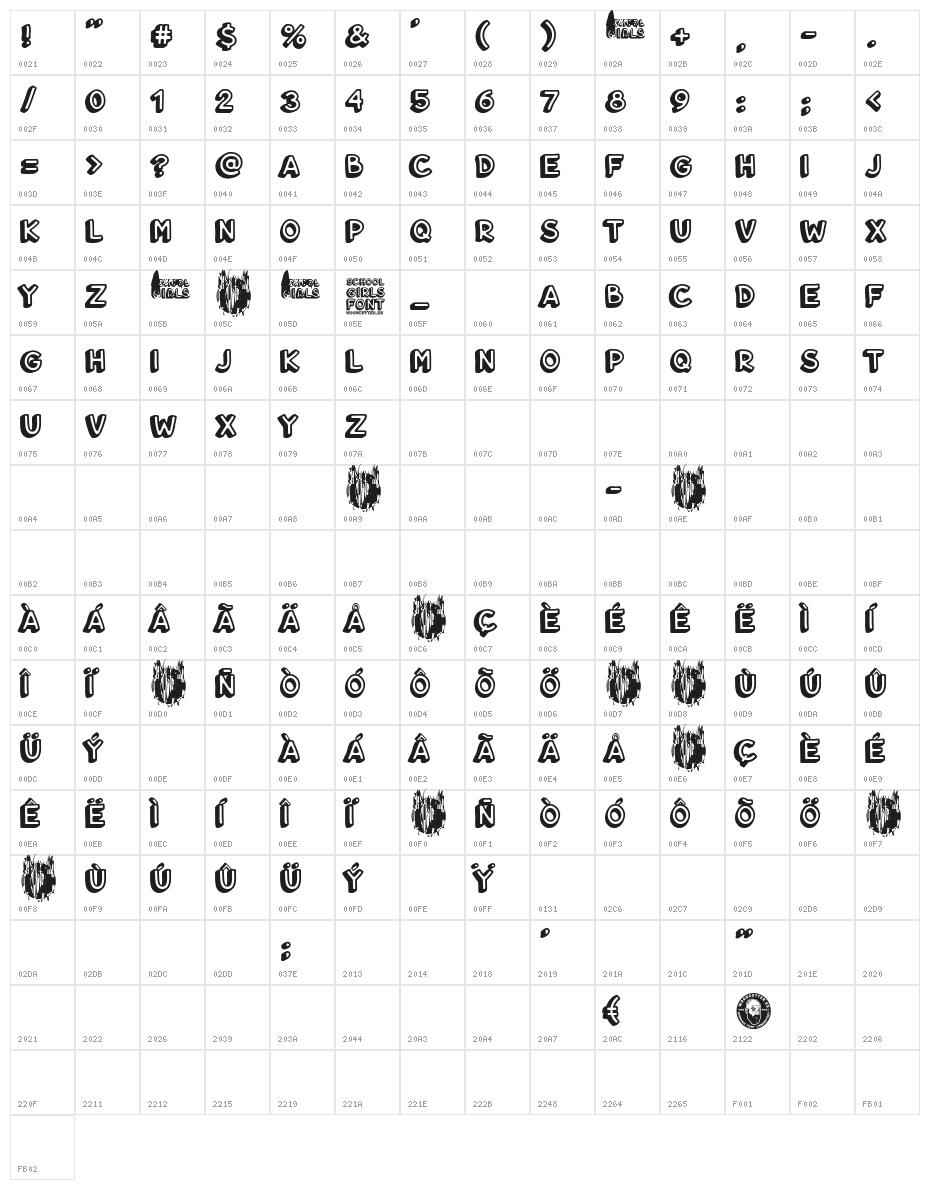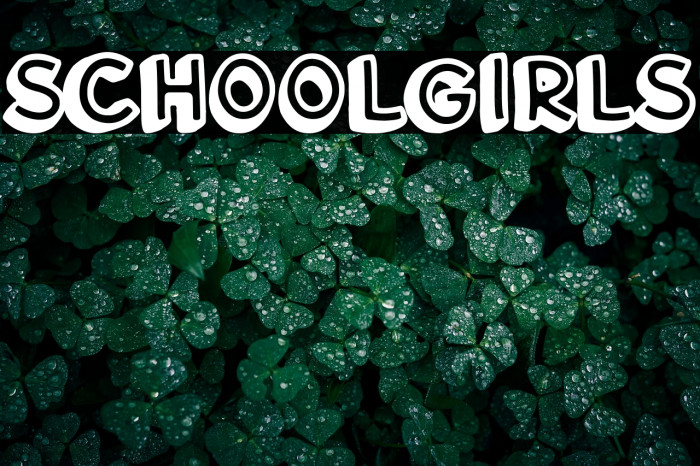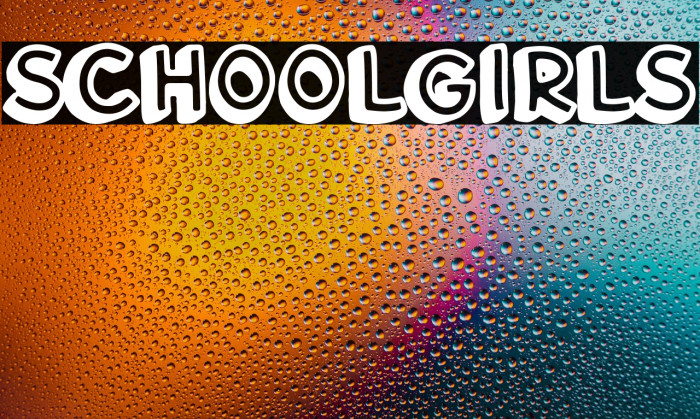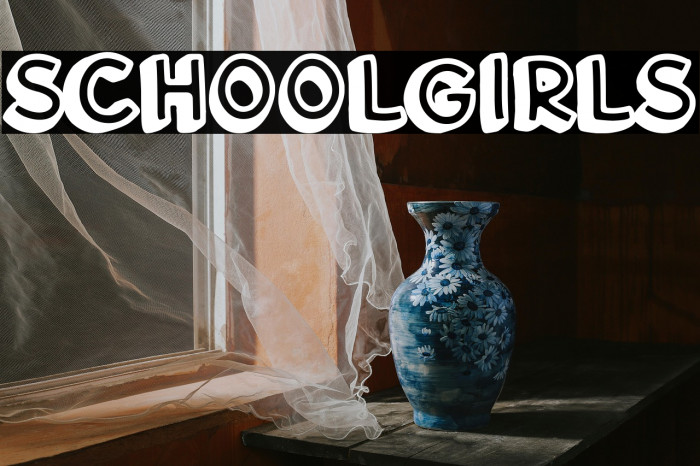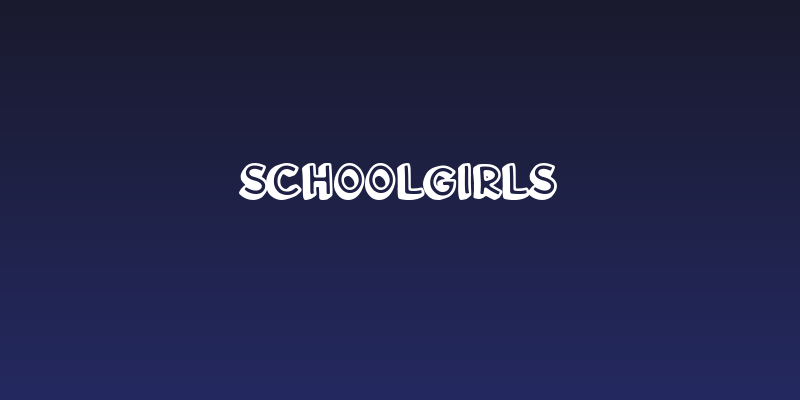
Schoolgirls Font
Schoolgirls Description
This playful and bold font features a thick, rounded style with a strong outline that gives each character a bubble-like appearance. The letters are uppercase and lowercase, with numbers and a variety of special characters included. The design is reminiscent of comic book lettering, making it ideal for projects that require a fun and informal touch. The characters are evenly spaced, providing a balanced and cohesive look. The font's boldness ensures high visibility, making it suitable for headlines and attention-grabbing text.
| Overall Style | Playful, Comic |
| Proposed Projects | Ideal for children's books, comic strips, playful branding, and educational materials. |